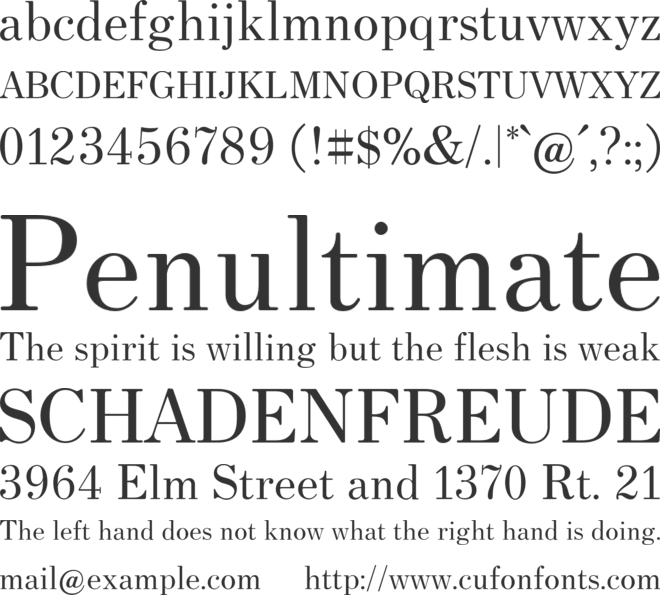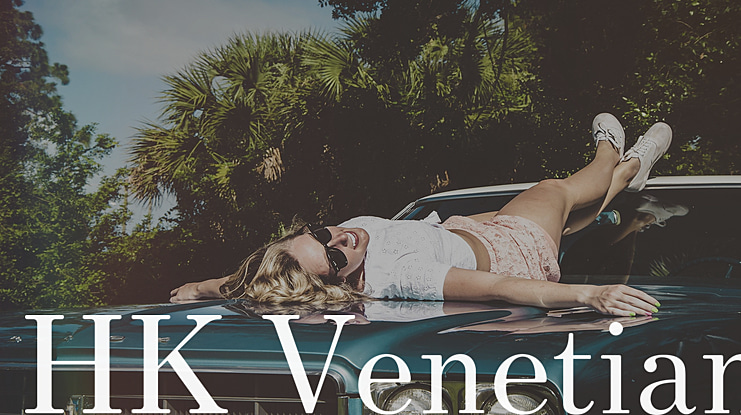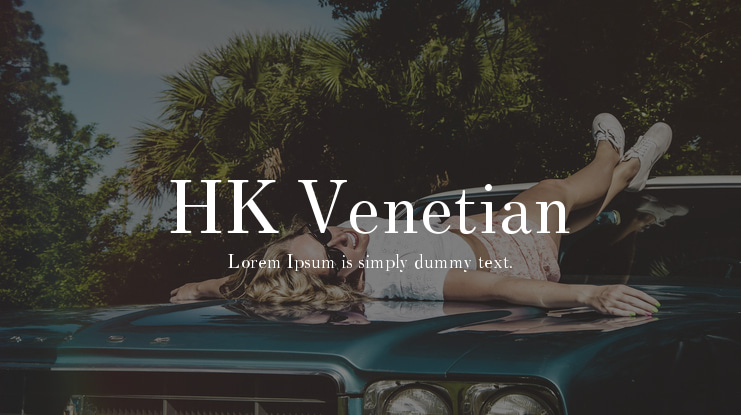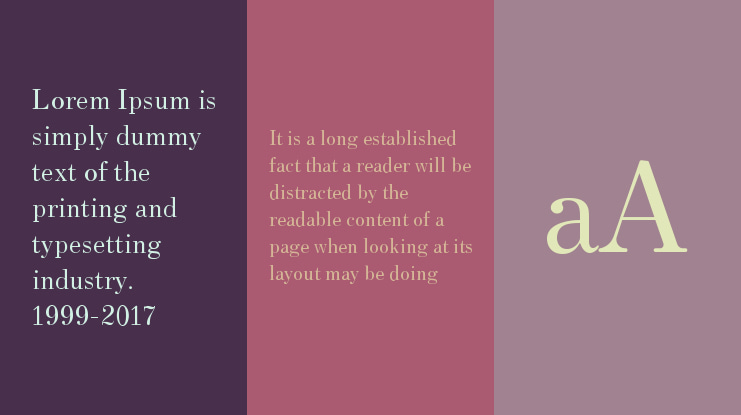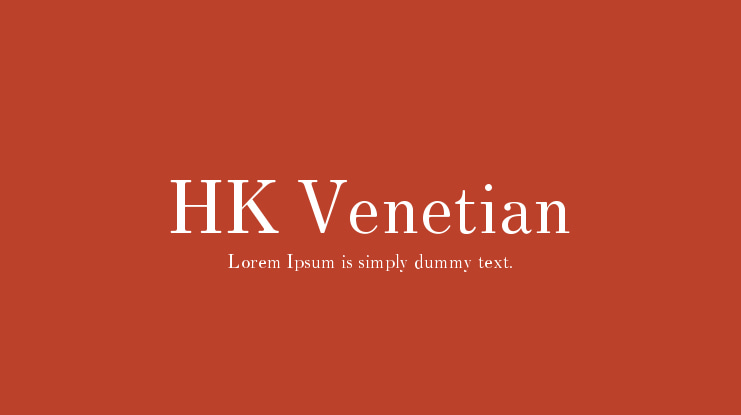
HK Venetian is a typeface revival of a "lost gem" — Venetian by Morris Fuller Benton. I tried to be as close as possible to the original by tracing and making the forms more geometric (like the corner brackets and the serifs).